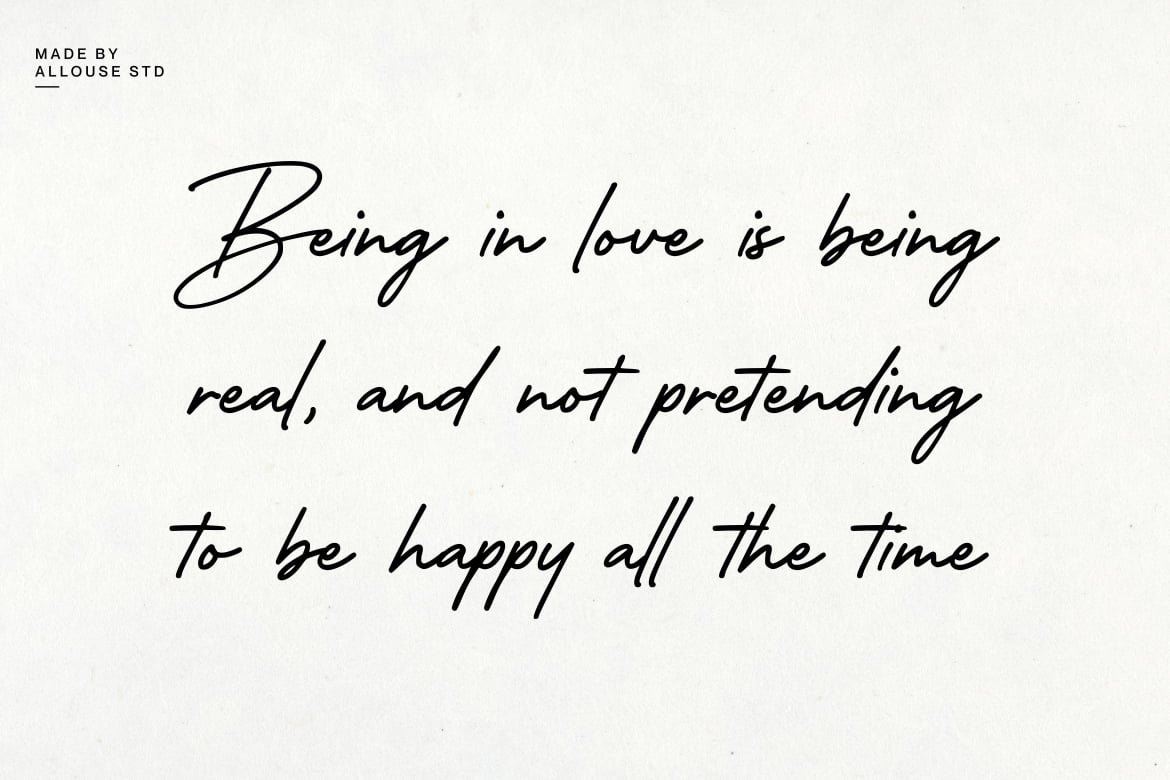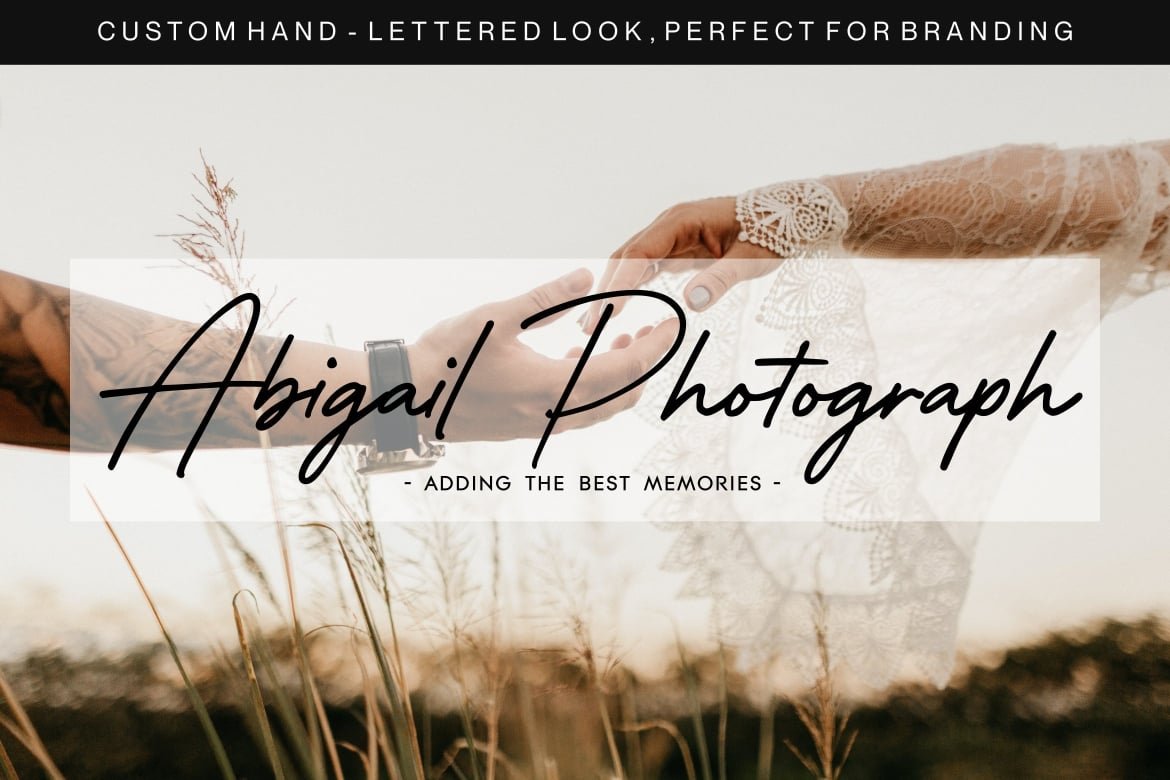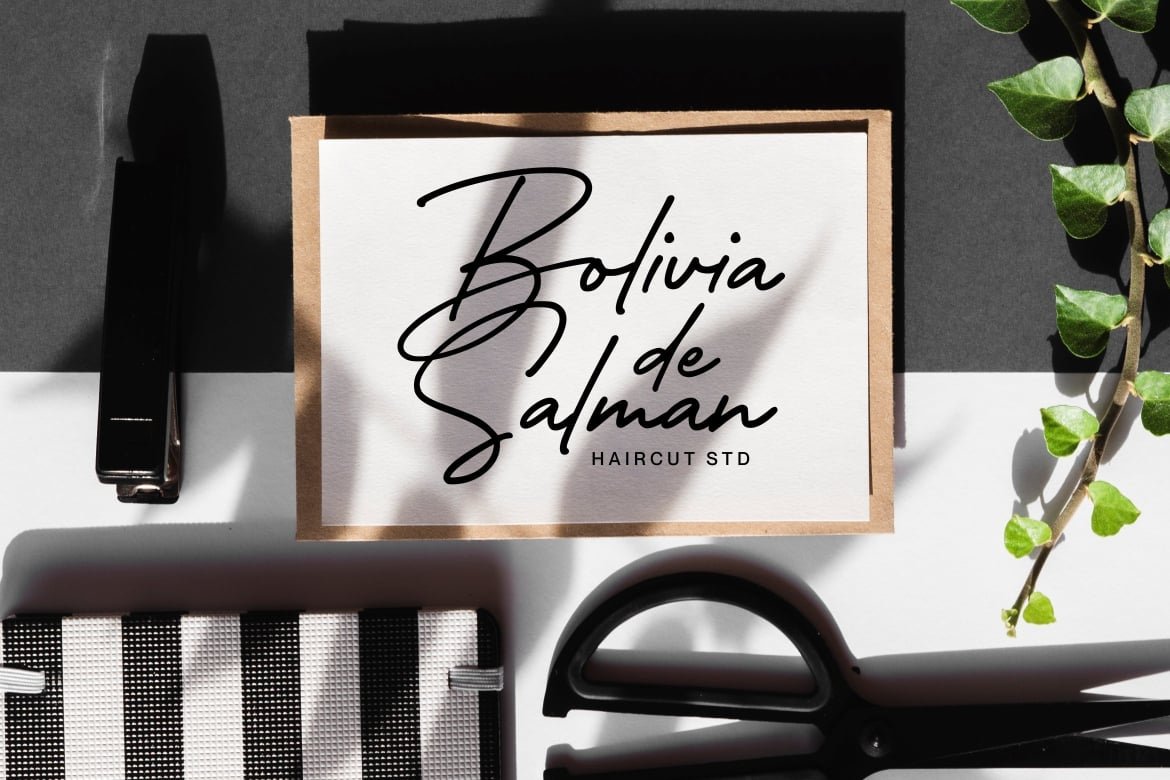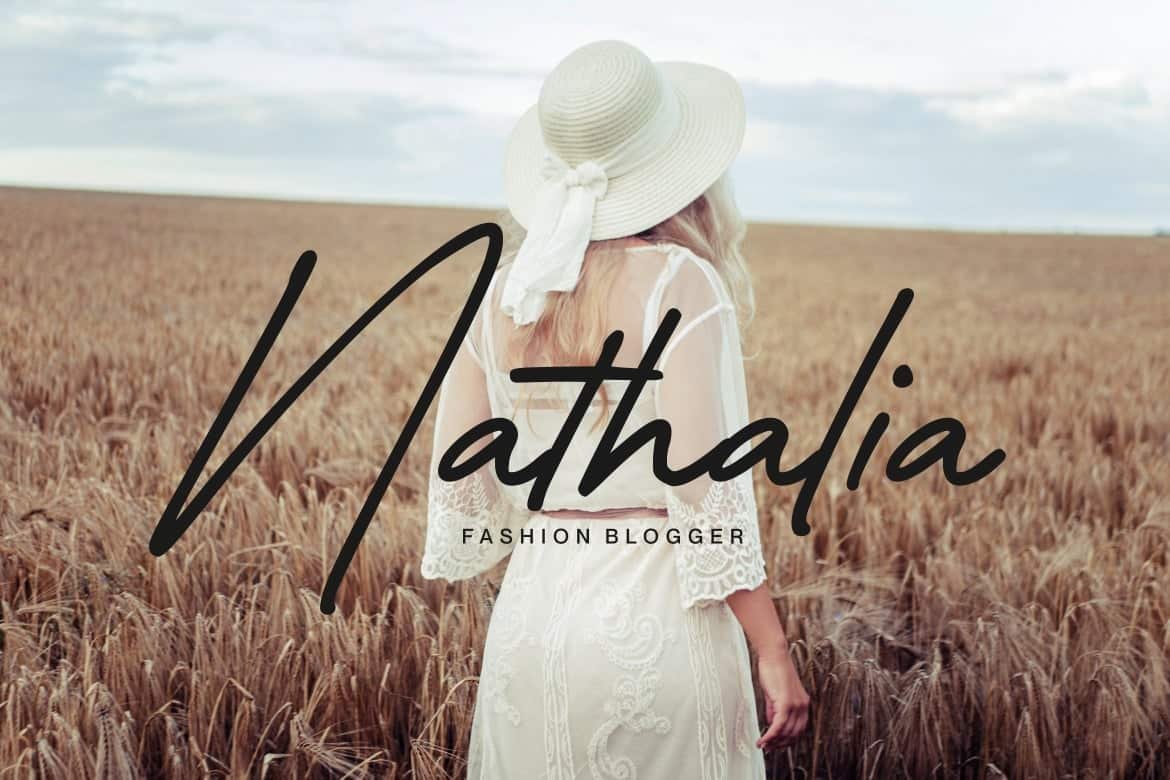
Proudly Presenting, Guthen Jaqueline A Stylish Signature Font
Guthen Jaqueline is perfect for any titles, logo, product packaging, branding project, megazine, social media, wedding, or just used to express words above the background.